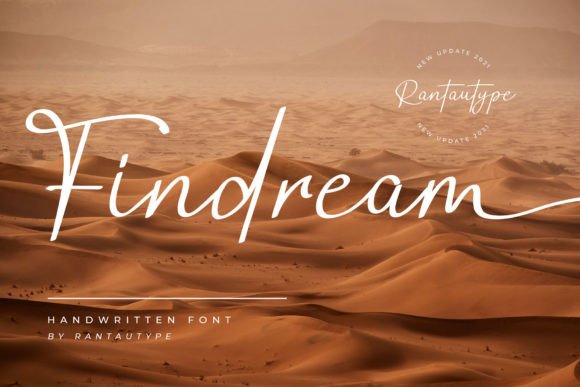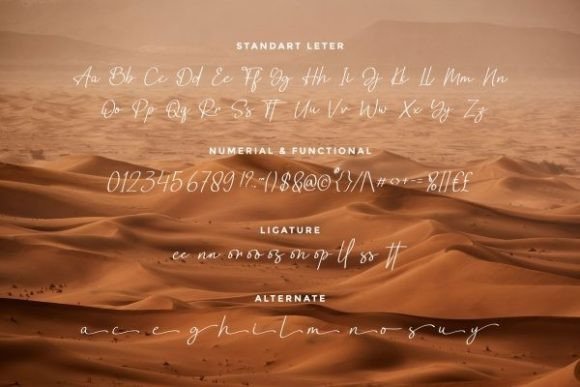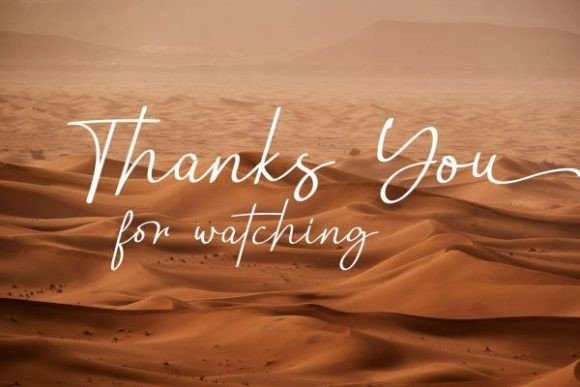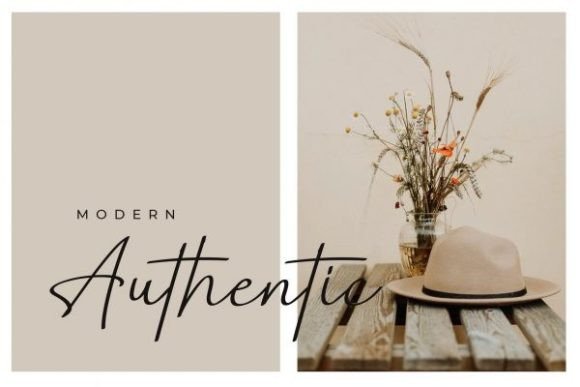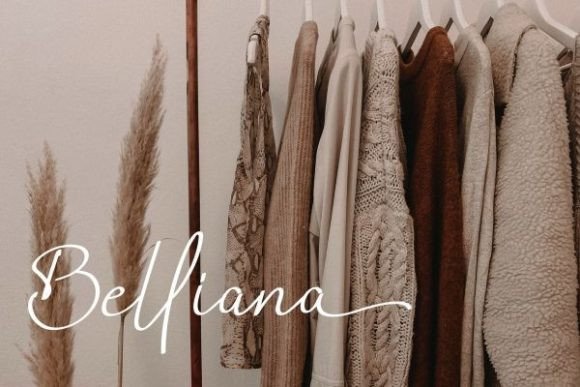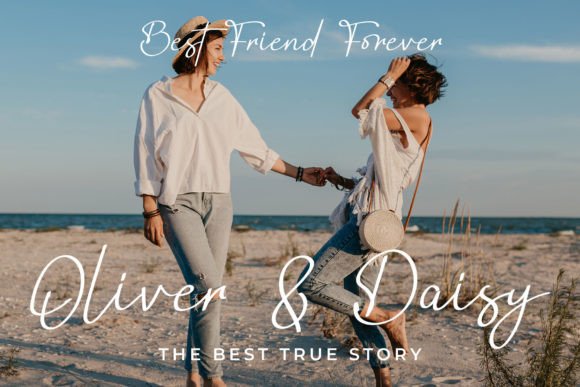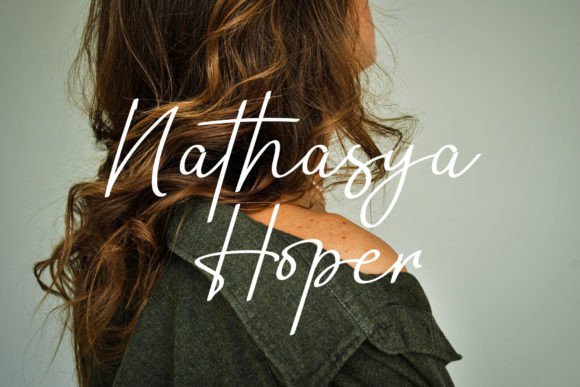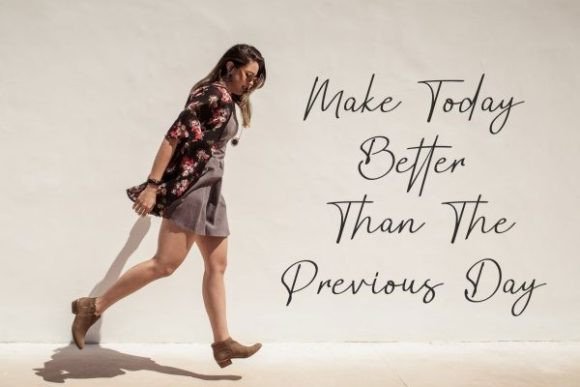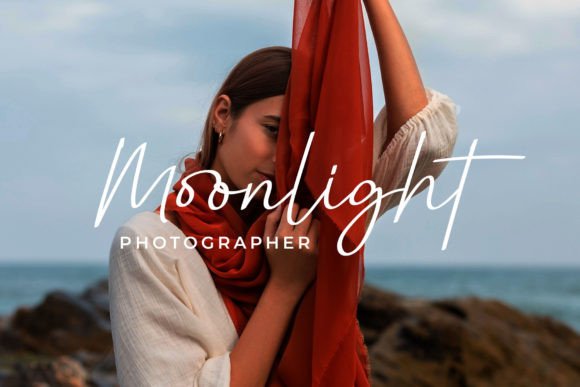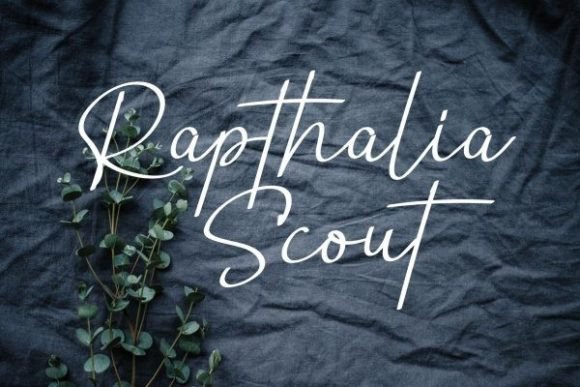
Findream Font
Add Modern Elegance with Findream Font
The Findream font is a modern and classy script font that perfectly balances readability, style, and catchiness. It’s an excellent choice for a wide range of creative projects, from photography watermarks and signature logos to quotes, album covers, business cards, and more. Findream elevates your work with sophistication and charm.
Perfect for Watermarks, Signatures, and Branding
The Findream font excels in many design applications including personalized branding, editorial layouts, promotional materials, and digital content. Its flowing strokes and elegant style give your projects a polished and memorable appearance.
Despite its decorative and classy appearance, the Findream font maintains excellent readability at various sizes. Whether used for subtle watermarks or bold titles, it adds elegance without sacrificing clarity, making it a versatile choice for many creative projects.
Make Your Designs Shine with Classy Style